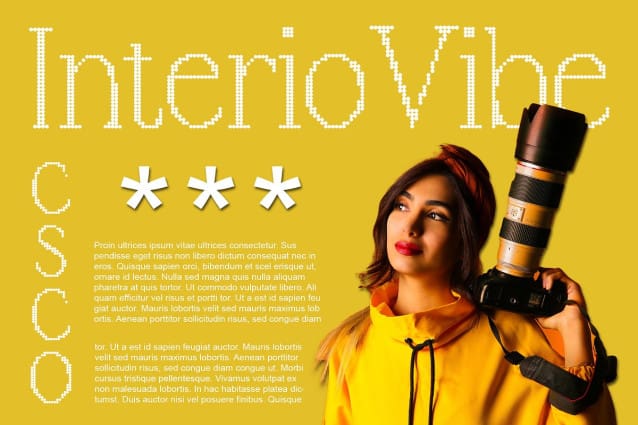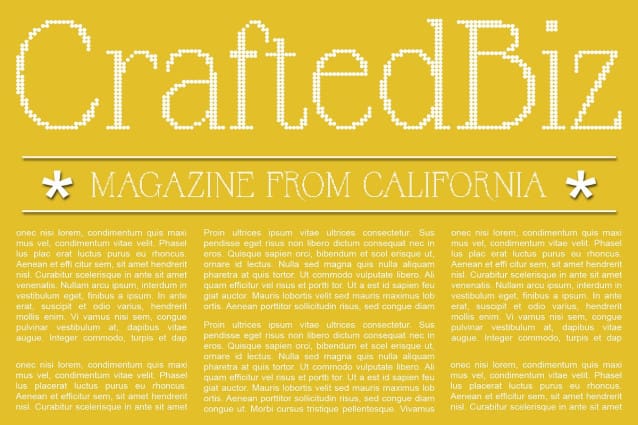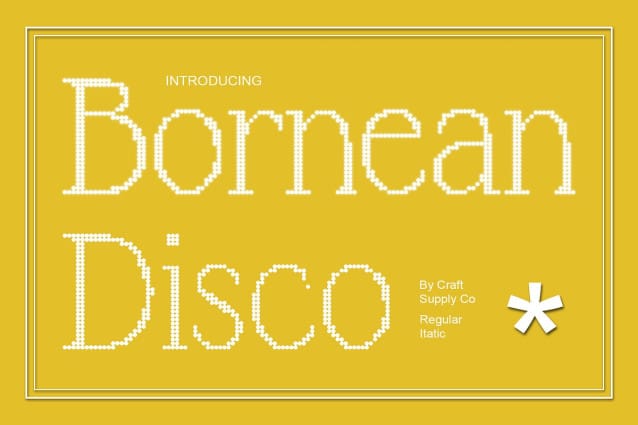
Bornean Disco Font
Bornean Disco Font : Adding Groove to Display Typography. Vibrant Disco Vibes Bornean Disco exudes a lively atmosphere with its moderate contrast serif design and disco-inspired effects. Each character pulsates with energy, perfect for captivating display needs.
Dynamic Contrast and Serif Style The font’s moderate contrast and serif style create a captivating visual rhythm, reminiscent of disco lights. Its dynamic appearance adds flair and excitement to any display project.
Tailored for Display Designed specifically for display purposes, This font thrives in various contexts, from event posters to album covers. Its bold presence and vibrant aesthetic ensure maximum impact.
Versatile Application Beyond its disco-inspired appearance, This font offers versatility in application. Whether used in branding, advertising, or digital media, its energetic style elevates any design.
Where Typography Meets Groove This font brings the groove of disco to display typography. With its vibrant style, dynamic contrast, and serif charm, it injects energy and excitement into every design, ensuring that your message shines bright on any platform. Step onto the dancefloor of design with This font and let your creativity groove.